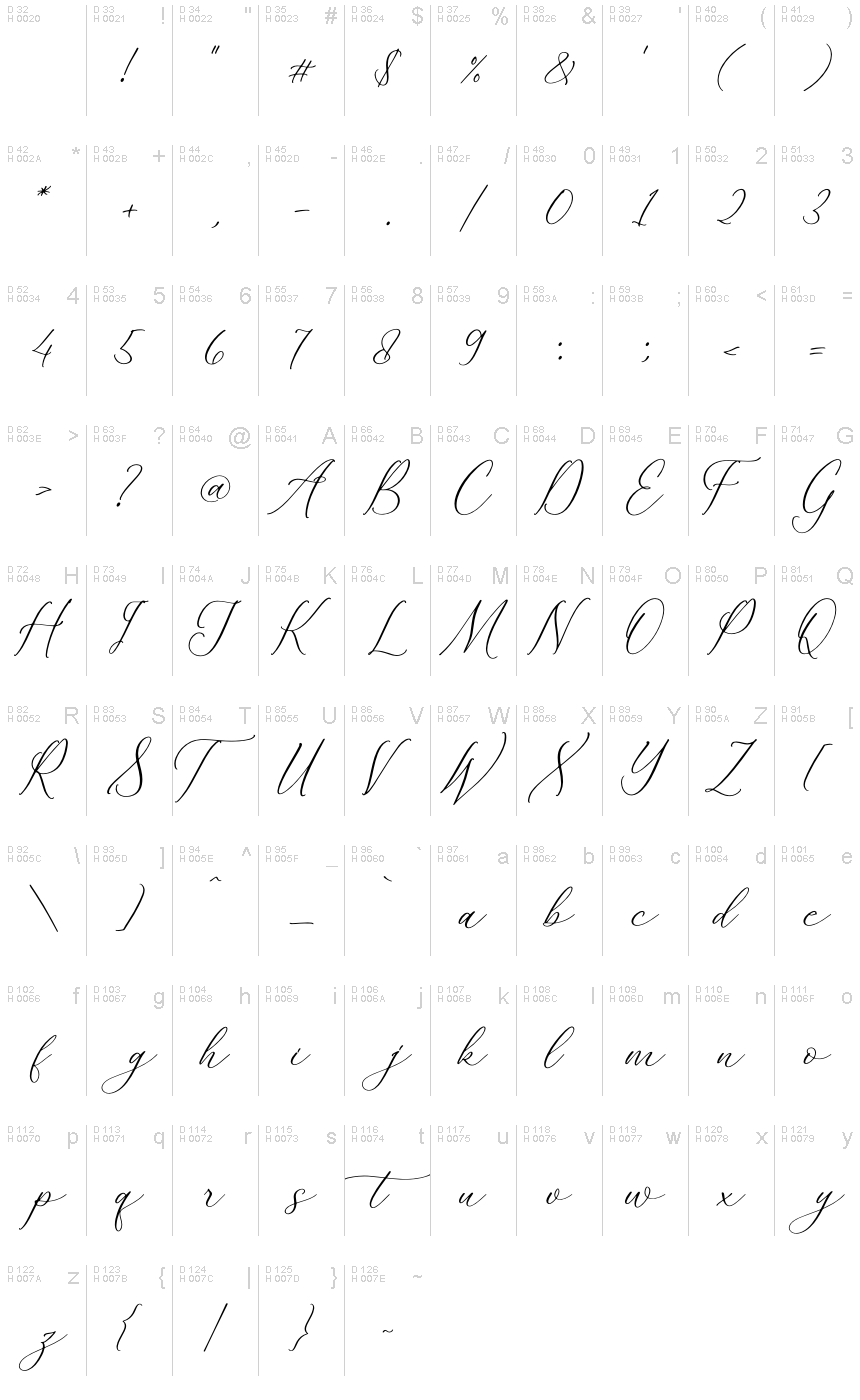
Whitley Pattrycia
Whitley Pattrycia font by Storytype Studio is a captivating handwritten signature font. Its light, elegant strokes create a fluid and sophisticated aesthetic, perfect for adding a personal touch to your design projects.
Whether you're crafting wedding invitations, branding materials, or social media graphics, this free font offers an exquisite balance of artistry and readability. The graceful curves and flowing lines evoke a sense of subtle luxury, making it ideal for upscale design elements where capturing attention is key.